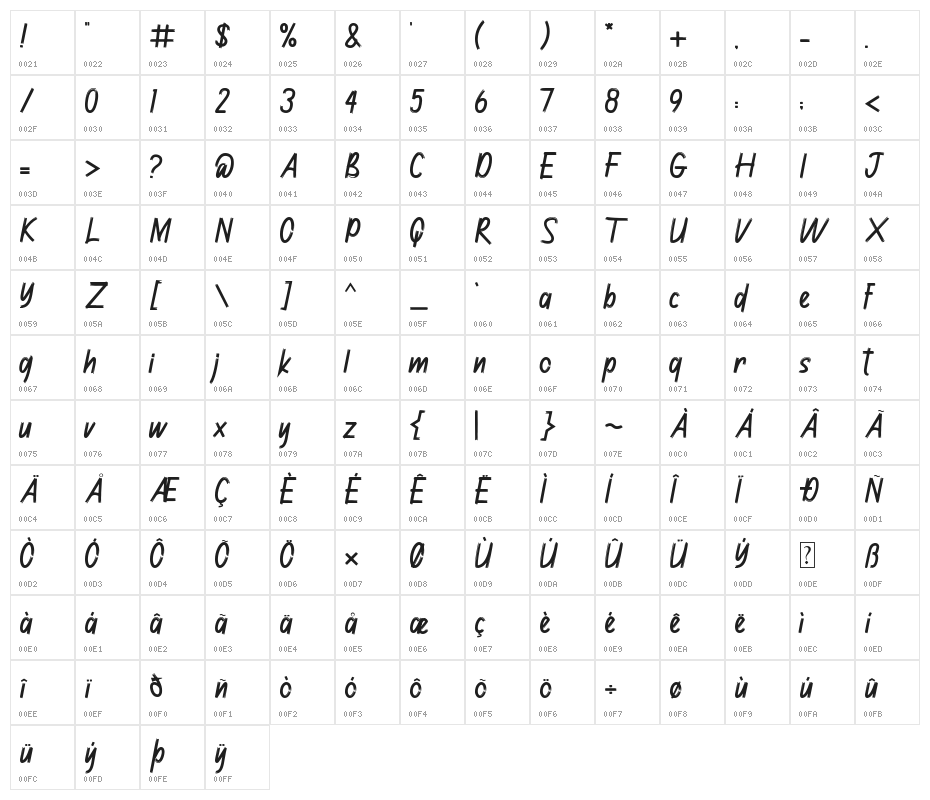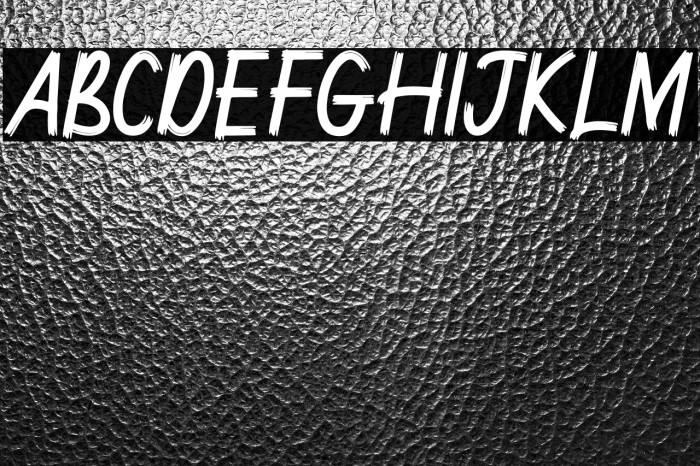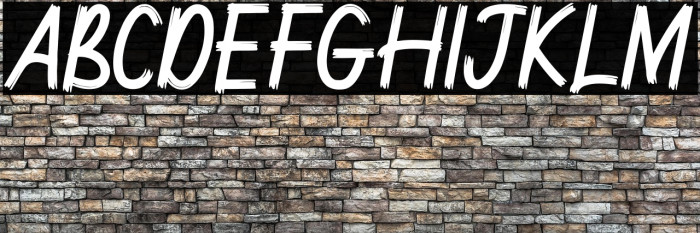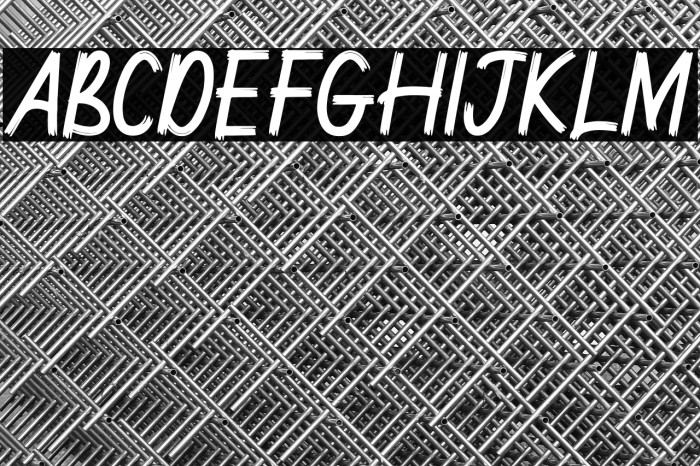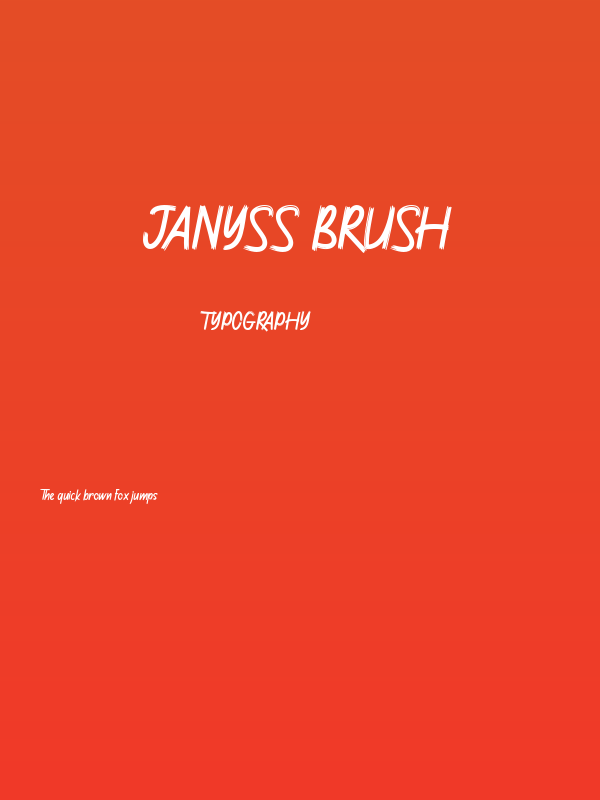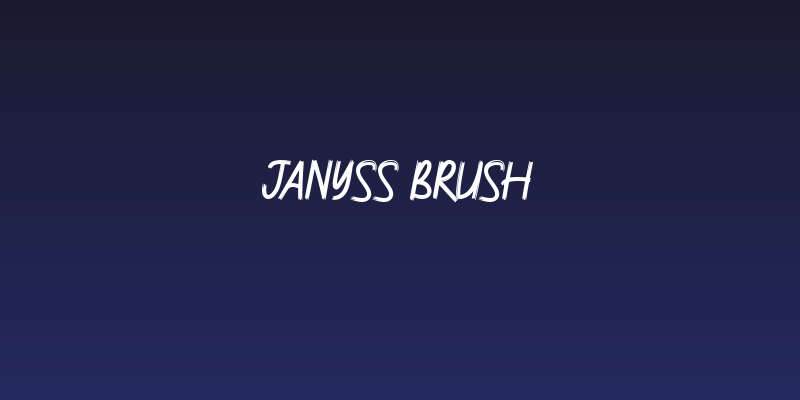
Janyss Brush Font
Janyss Brush Description
This font features a dynamic and energetic brush style, characterized by its bold and expressive strokes. The letters are slightly slanted, giving a sense of movement and fluidity. The uppercase and lowercase characters maintain a consistent style, with a playful yet sophisticated appearance. The numbers and special characters are designed to match the overall aesthetic, ensuring a cohesive look across all text elements. This font's unique brush texture adds a handcrafted feel, making it ideal for projects that require a personal touch.